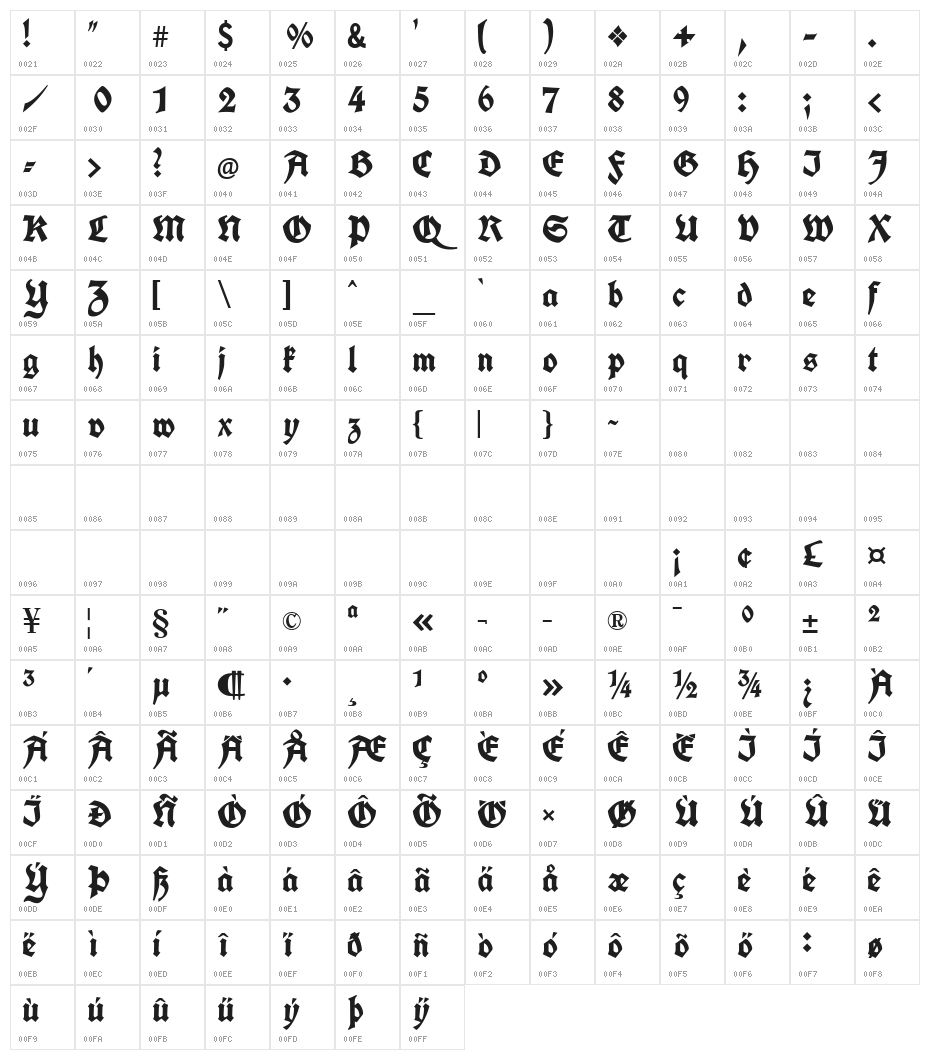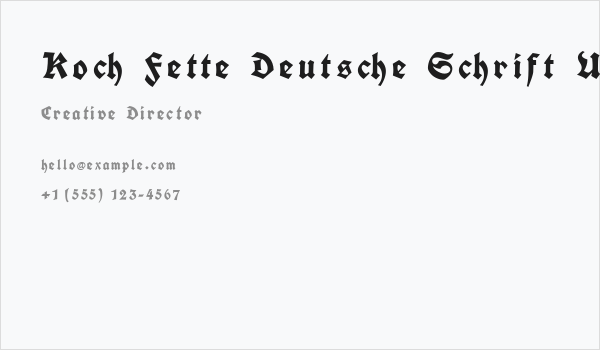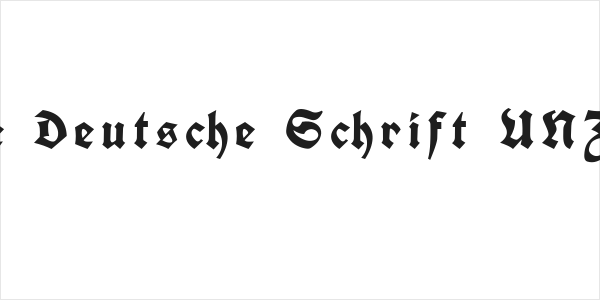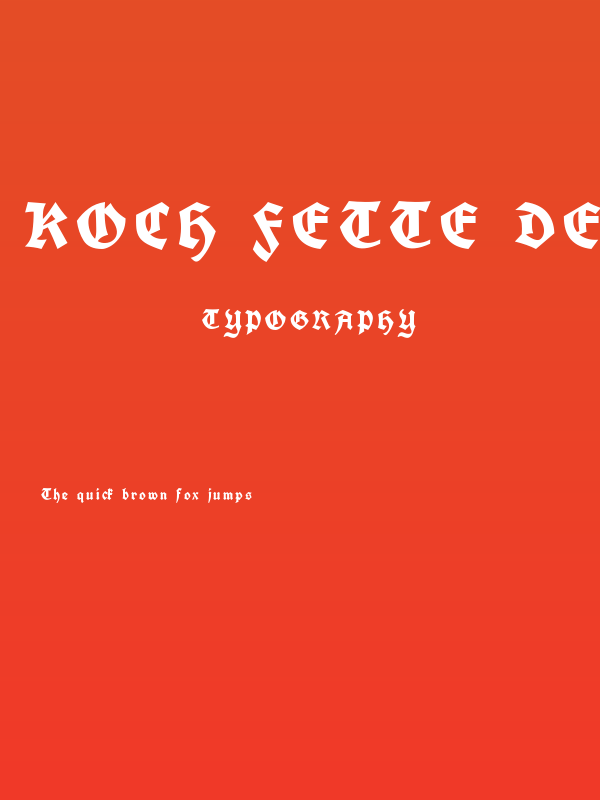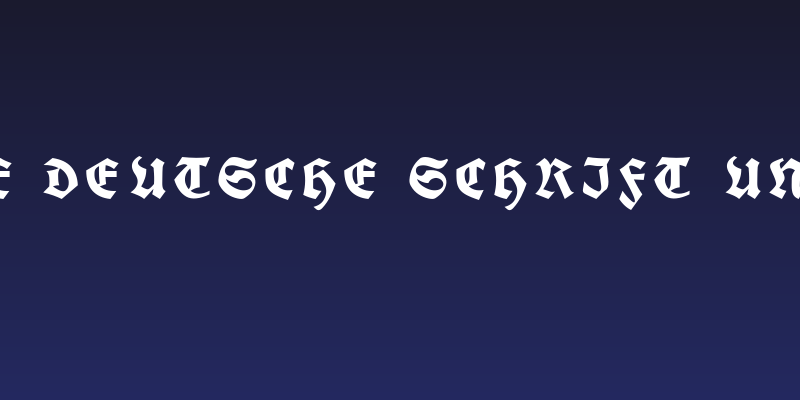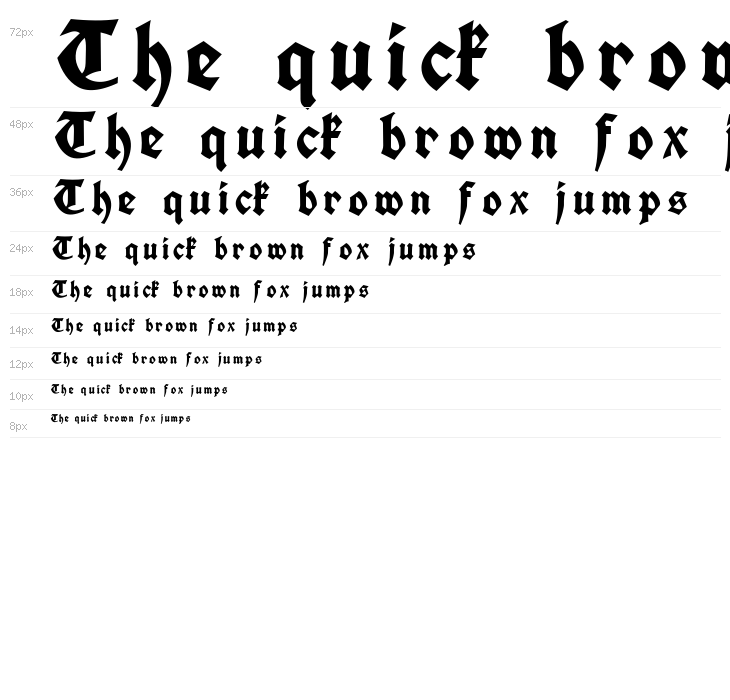
Koch Fette Deutsche Schrift UNZ1A Italic Font
Koch Fette Deutsche Schrift UNZ1A Italic Description
This font exhibits a traditional and ornate style, reminiscent of historical German blackletter typefaces. The characters are bold and angular, with sharp serifs and intricate detailing that give it a distinct, medieval appearance. The uppercase letters are particularly elaborate, featuring dramatic flourishes and pointed edges. The lowercase letters maintain the same intricate design, with a consistent stroke weight that enhances readability despite the decorative nature. Numerals and special characters are crafted with the same attention to detail, ensuring a cohesive look across all glyphs. This font's unique style makes it ideal for projects that require a touch of historical or cultural authenticity.
| Use Case | Headlines, Logos, Decorative text |
| Proposed Projects | Suitable for historical documents, cultural event posters, book covers, and branding that requires a traditional or medieval touch. |